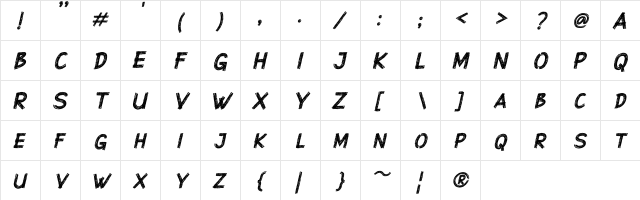
Superstition Rough Brush-DEMO Italic
Italic ·  Galih Sulistya Aji ·
DesignerGalih Sulistya Aji
Design Context for Superstition Rough Brush-DEMO Typeface
Superstition Rough Brush-DEMO embraces imperfection — its rough, textured character adds raw authenticity to designs that want to feel lived-in and unconventional. The slanted form adds forward momentum and visual energy.
Suited to punk-influenced zines, underground music branding, streetwear, and raw, anti-corporate design.